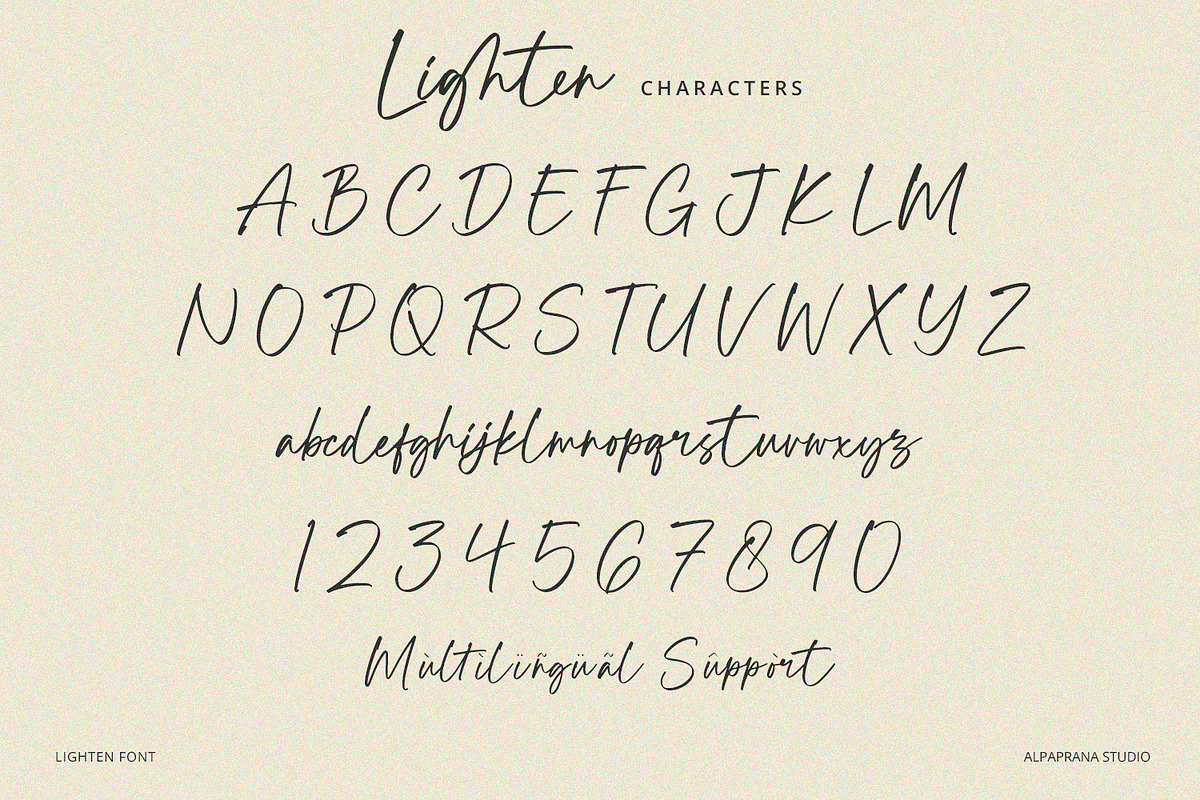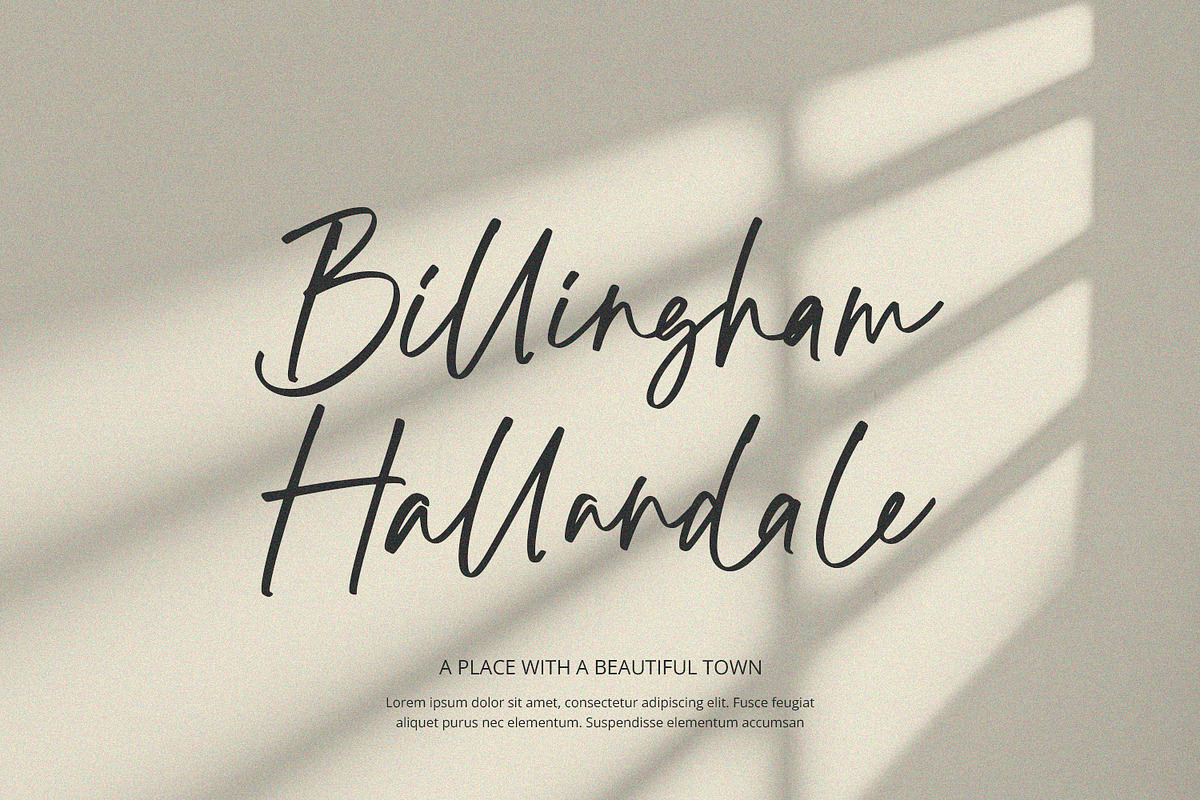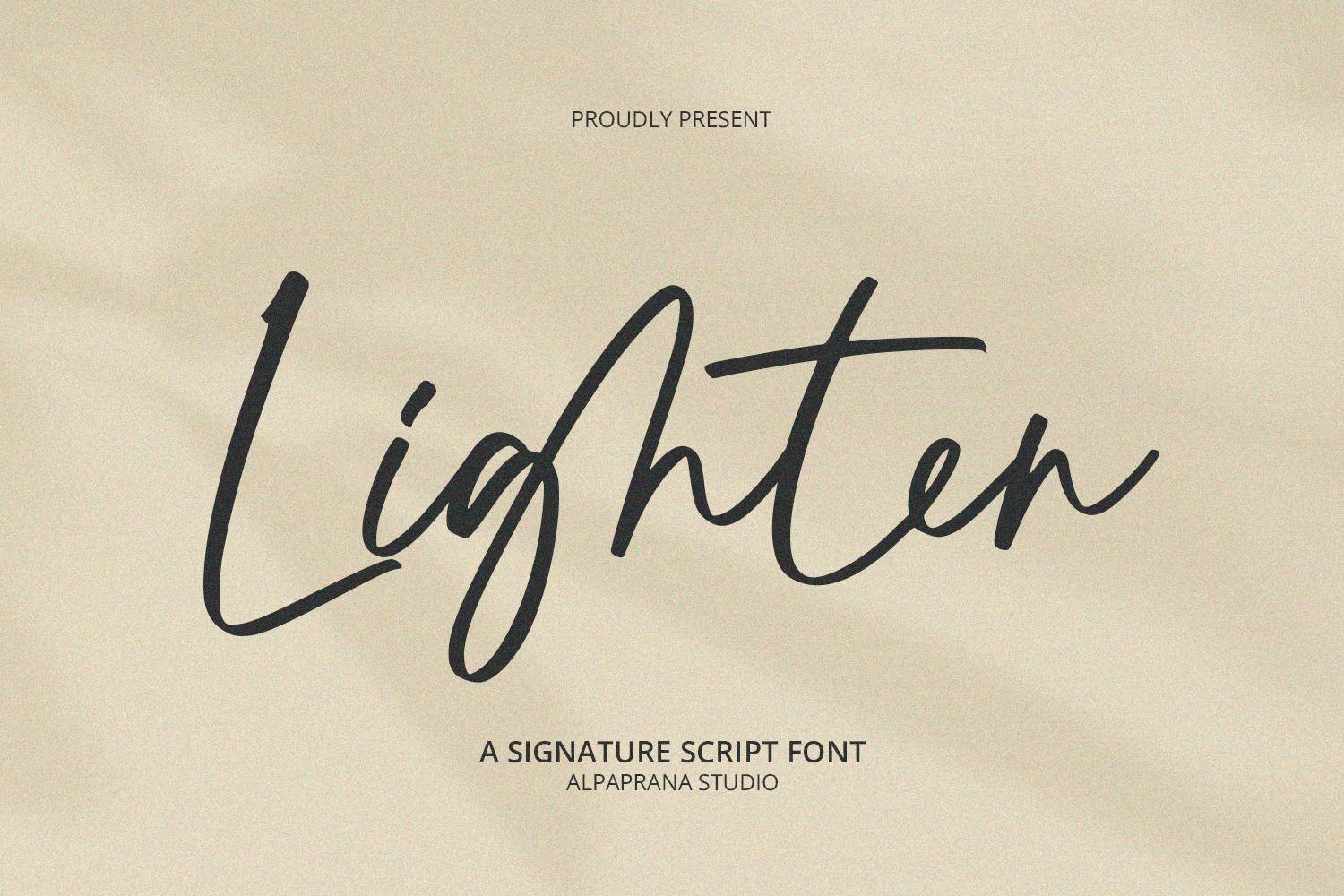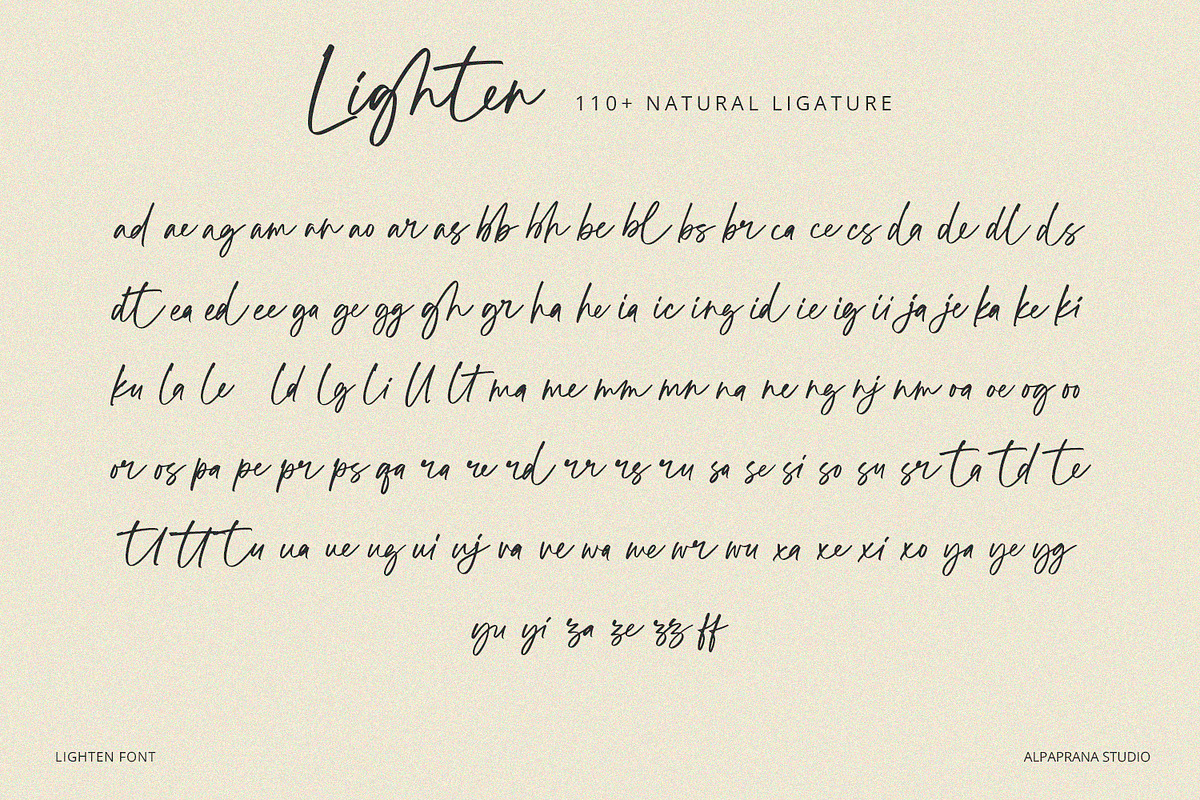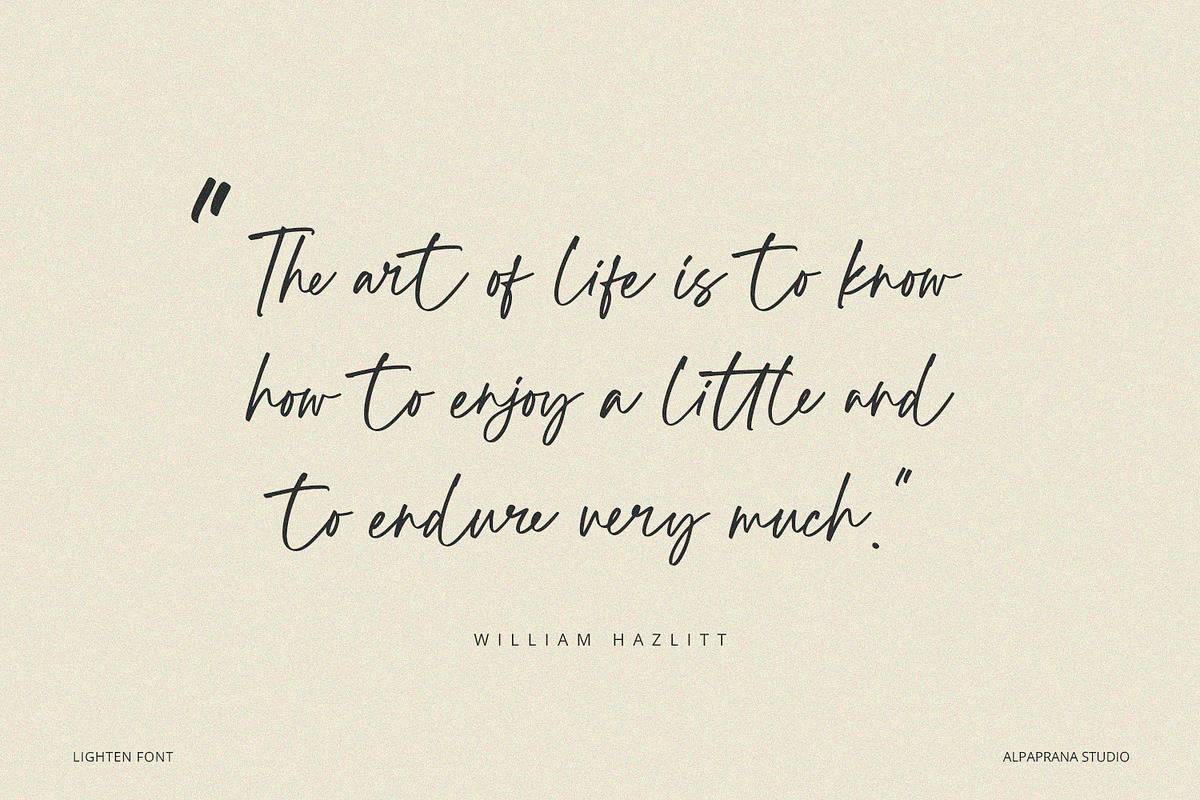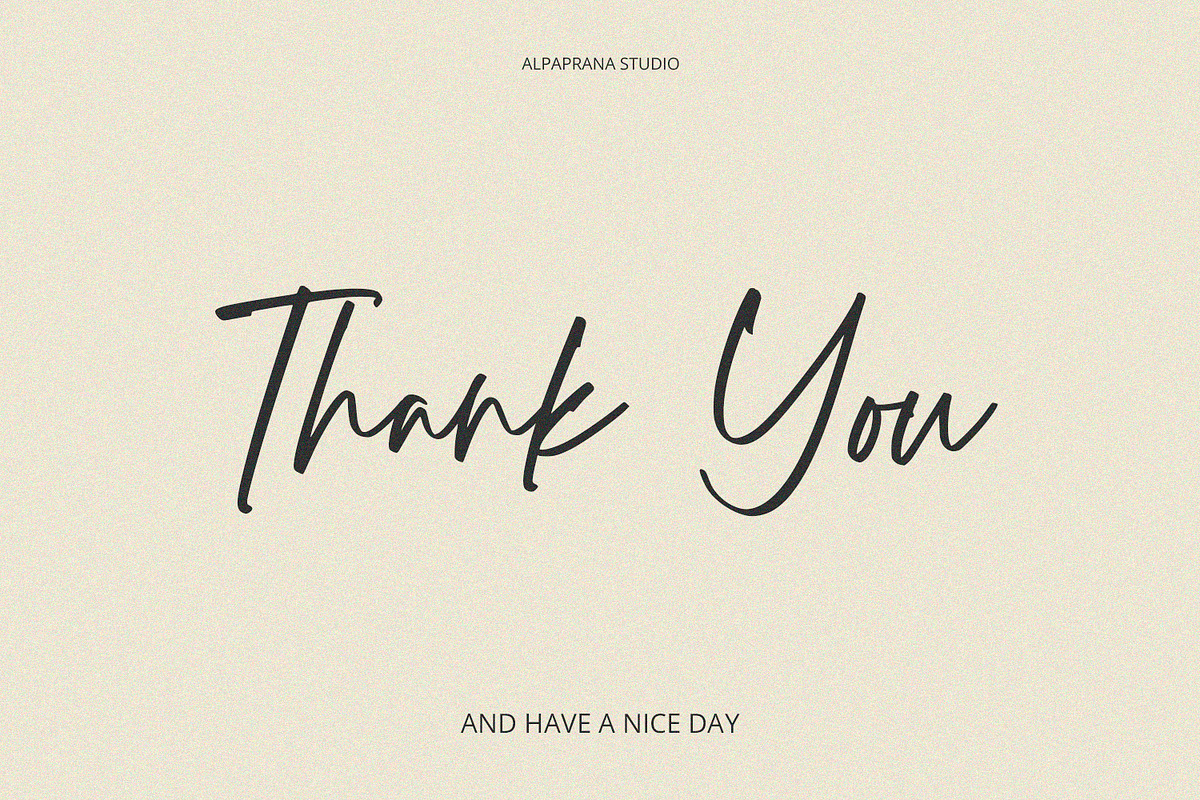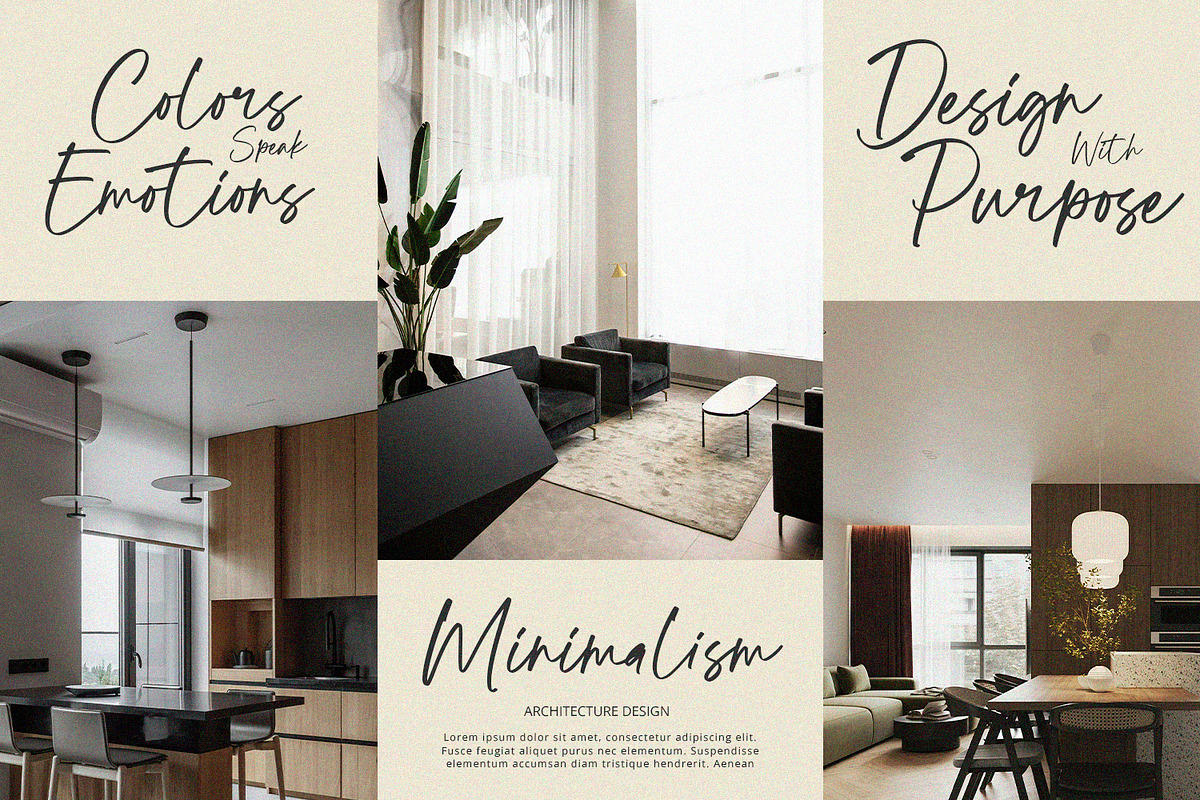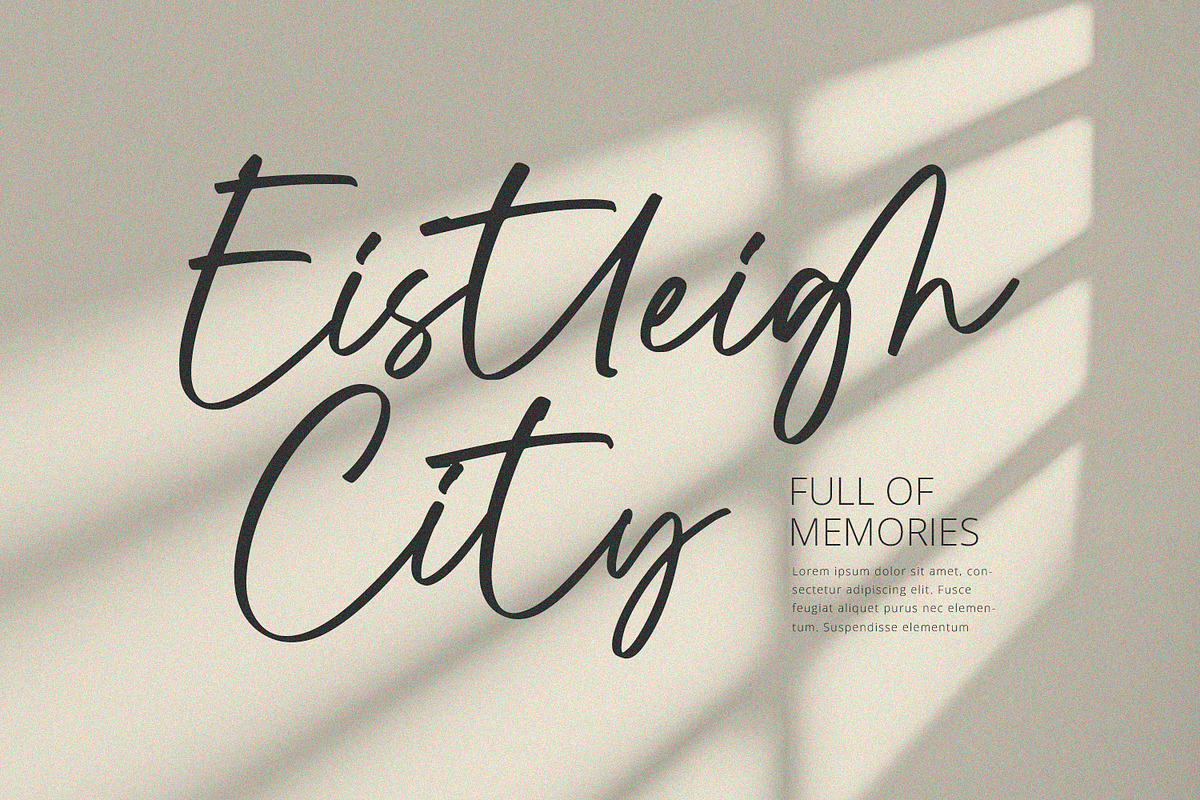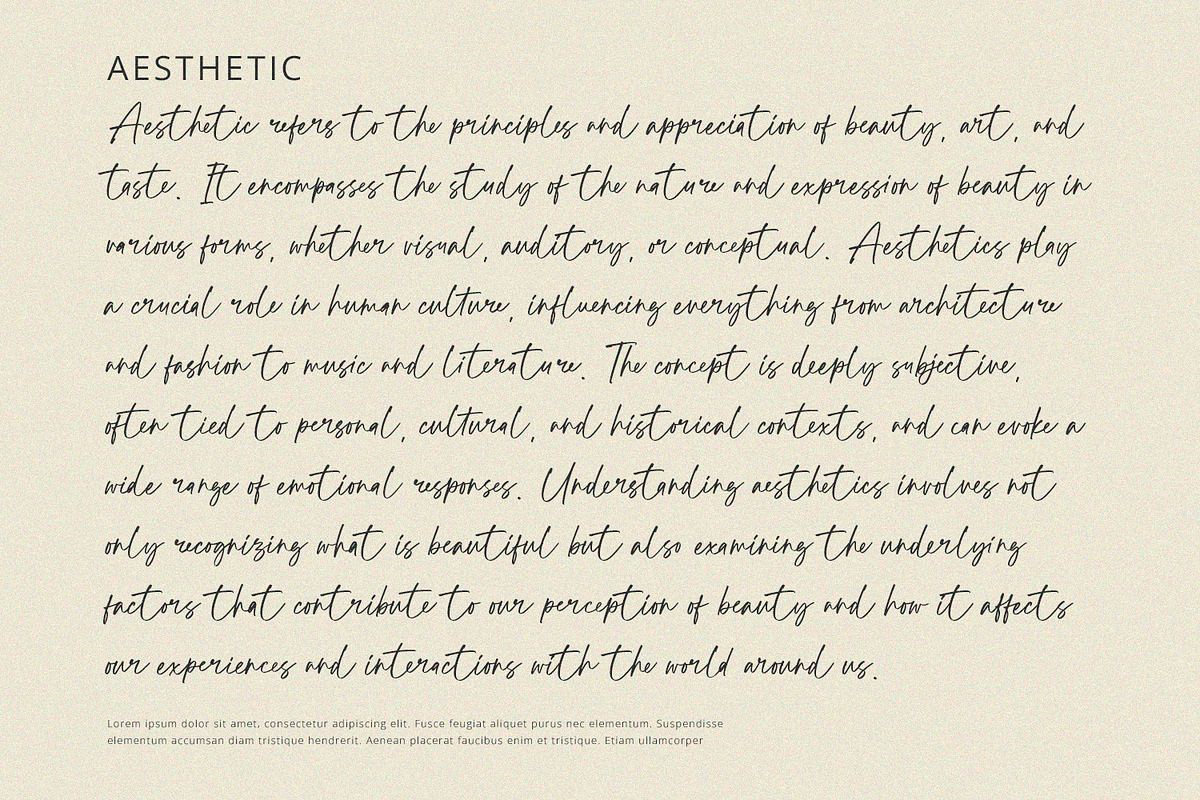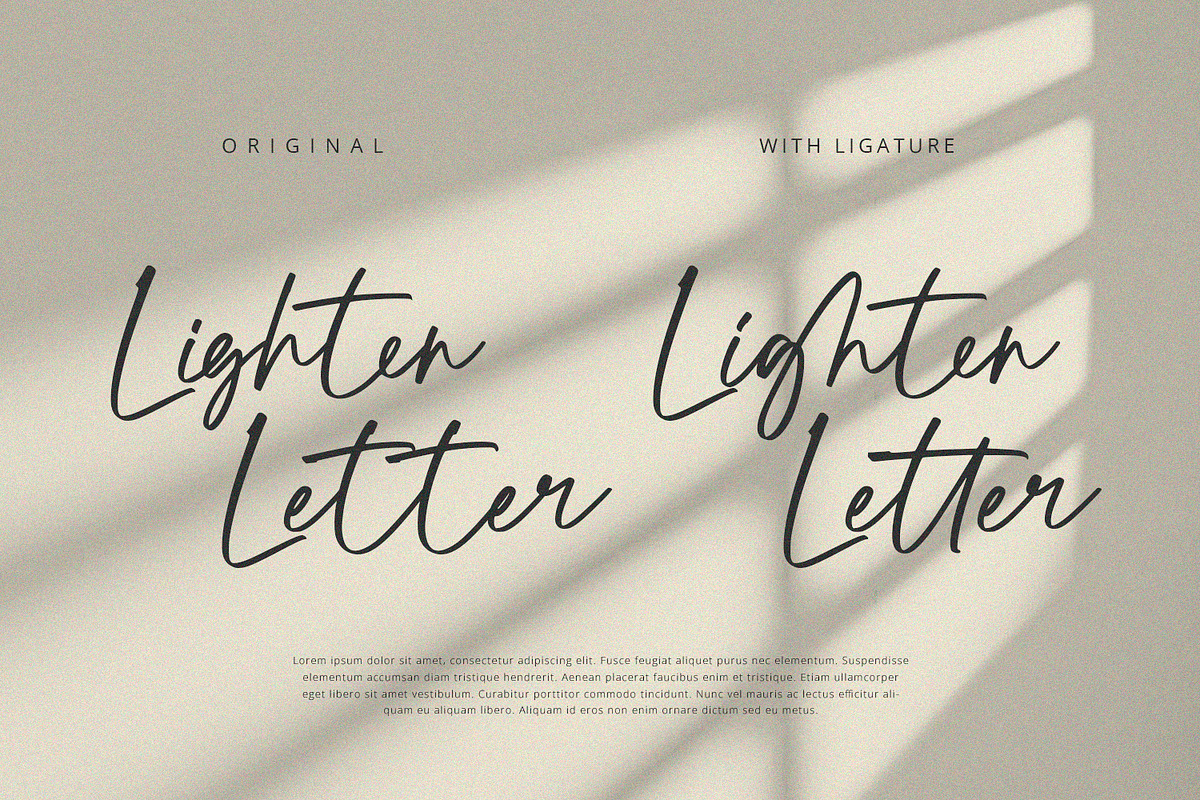
Lighten - Handwritten Font
Lighten is a handwritten script font with chic and modern feels. It will be perfectly used for Branding, Logo Design, Lettering, Logotype, Clothing, Poster, magazine, packaging, posters, shopping bags, t-shirts, book covers, photography, special events and other design project.